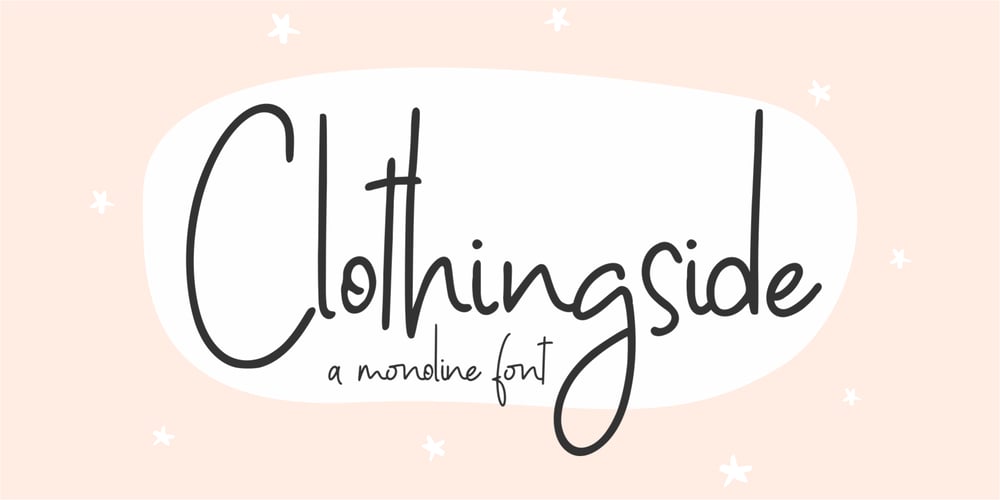
Clothingside
Clothingside font
Clothingside Font Family was designed by Suhery Anto, Odies Dwi Yudhistira and published by Qwrtype Foundry. Clothingside contains 1 styles and family package options. Proudly Present, Clothingside is a Lovely Handwritten FontClothingside perfect for product packaging, branding project, megazine, social media, wedding, or just used to express words above the background.Clothingside also come with Multi-Lingual Support.Enjoy the font, feel free to comment or feedback, send me PM or email.Thank you!